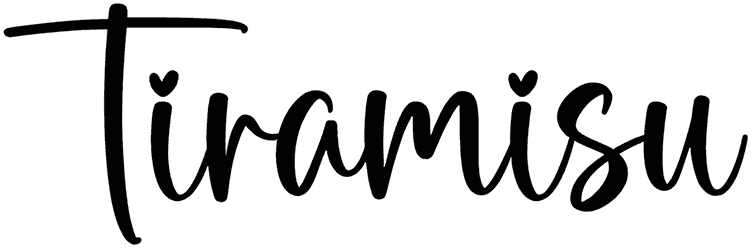
Tiramisu Font
So we have Tiramisu here, openly telling you what you should do with it whenever you get the chance. Obviously, it wouldn’t have been called that if it weren’t such a fine choice for your coffee shop menus, bakery signs, branding cakes and biscuits, and anything from the same category.
Oh, and it’s also a heart font!!! That should let you come up with the best designs for your love letters and anything else with a romantic flavor like that.